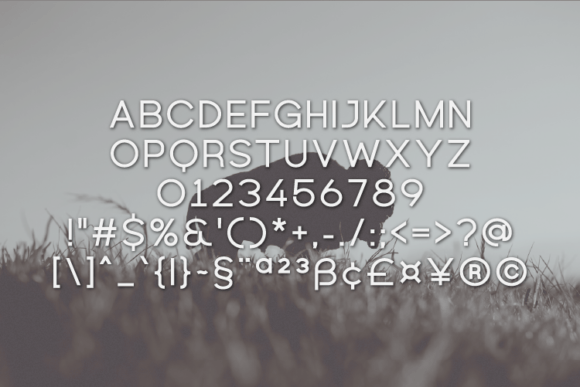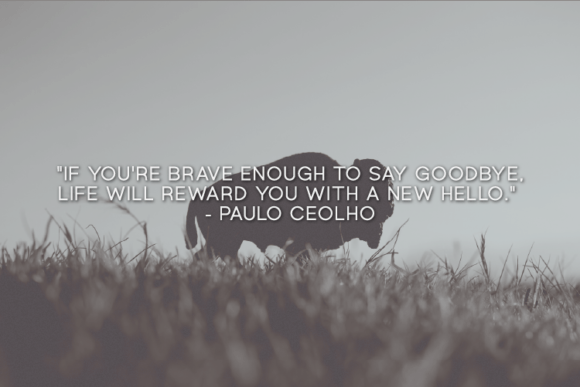
Introducing Buffalo Font: Elevate Your Designs with a Stunning Sans Serif
Are you tired of using the same old fonts in your designs? Look no further than Buffalo Font, a beautiful sans serif font that’s perfect for adding a touch of elegance and sophistication to any project. Whether you’re a designer, crafter, or DIY enthusiast, Buffalo Font is a versatile and stylish choice that’s sure to impress.
What is Buffalo Font?
Buffalo Font is a modern sans serif font that’s designed to complement a wide range of projects. Its clean lines, simple shapes, and classic feel make it an excellent choice for creating beautiful headings, gorgeous invitations, stunning logos, and so much more. With its highly legible and versatile design, Buffalo Font is perfect for use in a variety of contexts, from digital designs to print materials.
Key Features of Buffalo Font
So what makes Buffalo Font so special? Here are just a few of its key features:
- Stunning sans serif design: Buffalo Font boasts a sleek and modern sans serif design that’s perfect for creating clean and sophisticated text.
- Highly legible: With its clear and simple shapes, Buffalo Font is highly legible, even at small sizes.
- Versatile: Buffalo Font can be used in a wide range of contexts, from digital designs to print materials.
- Elegant and sophisticated: Buffalo Font adds a touch of elegance and sophistication to any project.
Uses for Buffalo Font
So what can you use Buffalo Font for? The possibilities are endless! Here are just a few ideas to get you started:
- Headings and titles: Use Buffalo Font to create stunning headings and titles for your blog posts, articles, and other written content.
- Invitations and announcements: Create gorgeous invitations and announcements for special events, such as weddings, birthday parties, and graduations.
- Logos and branding: Use Buffalo Font to create stunning logos and branding materials for your business or personal brand.
- Signage and displays: Buffalo Font is perfect for use in signage and displays, such as menus, flyers, and posters.
Why Choose Buffalo Font?
With so many fonts to choose from, why should you choose Buffalo Font? Here are just a few reasons:
- Unique and stylish: Buffalo Font is a unique and stylish font that’s sure to set your designs apart.
- High-quality design: Buffalo Font is designed to high standards, ensuring that your designs look professional and polished.
In conclusion, Buffalo Font is a stunning sans serif font that’s perfect for designers, crafters, and DIY enthusiasts. With its clean lines, simple shapes, and classic feel, it’s an excellent choice for creating beautiful headings, gorgeous invitations, stunning logos, and so much more. Whether you’re working on a digital design or print project, Buffalo Font is a versatile and stylish choice that’s sure to impress. So why wait? Download Buffalo Font today and elevate your designs to the next level!